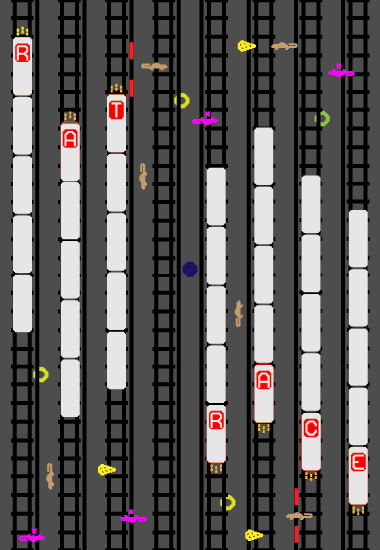
• This is another prototype for a simple game where rats have to navigate across subway tracks, the third rail, and oncoming subway trains going in both directions. rats can cross the third rail so long as no train is on that line otherwise the rat gets fried :( rats can enter solid holes to move underground and can exit open holes anywhere on screen but must be careful not to exit when train is passing or uh-oh... i added a piece of cheese, although i think it looks like a slice of pizza too; the pieces of cheese show up randomly and if a rat can grab all the cheese and get back to a hole, they win and move to the next level. i spent the summer working in nyc and i think that is the inspiration for this font as i saw a couple of rats in the subway while there :)
this is the last one i designed and a favorite. it also is more of a complete concept between font and game. this will definitely be one of my entries.